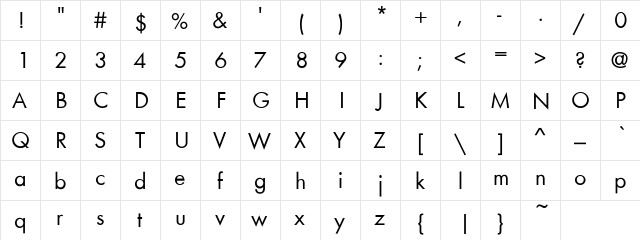
Belmar-Normal Regular
Design Context for Belmar-Normal Typeface
Belmar-Normal is a composed and adaptable typeface that performs quietly and consistently across a wide range of design contexts.
Pro Tip: Use Belmar-Normal in both headline and body roles to test its range before committing to a single application.